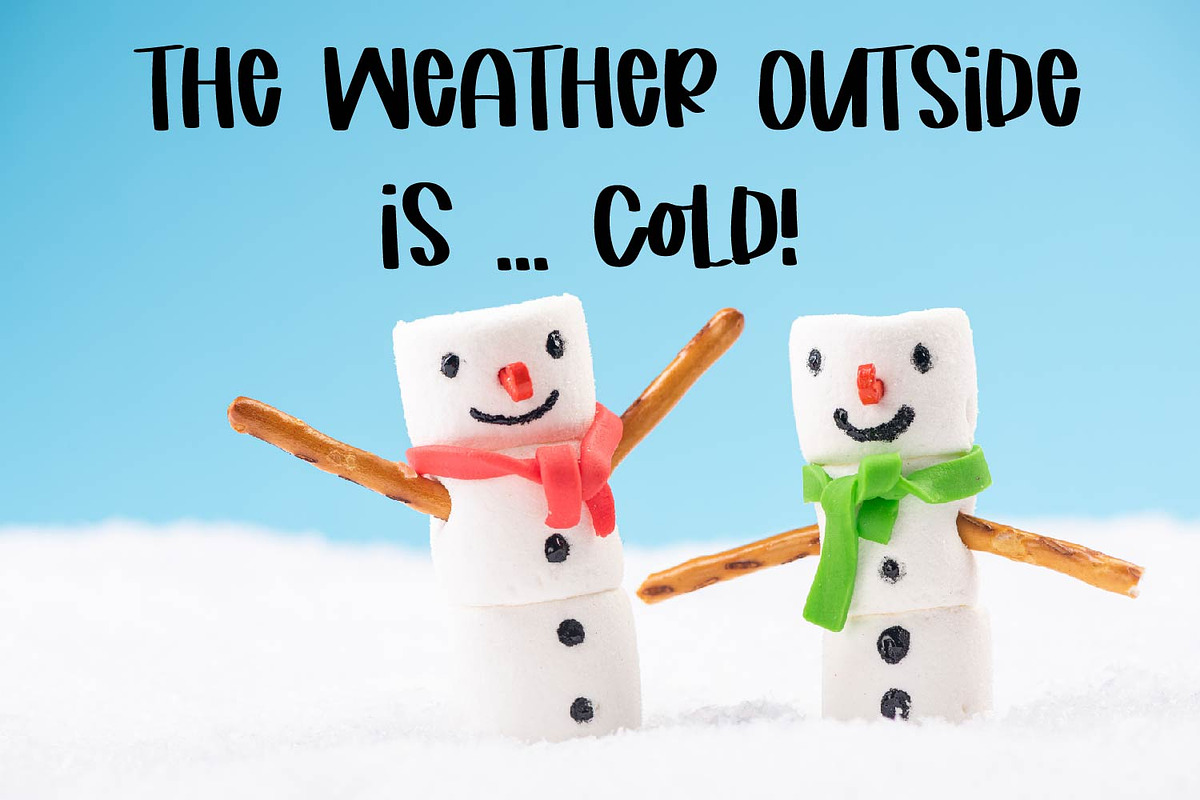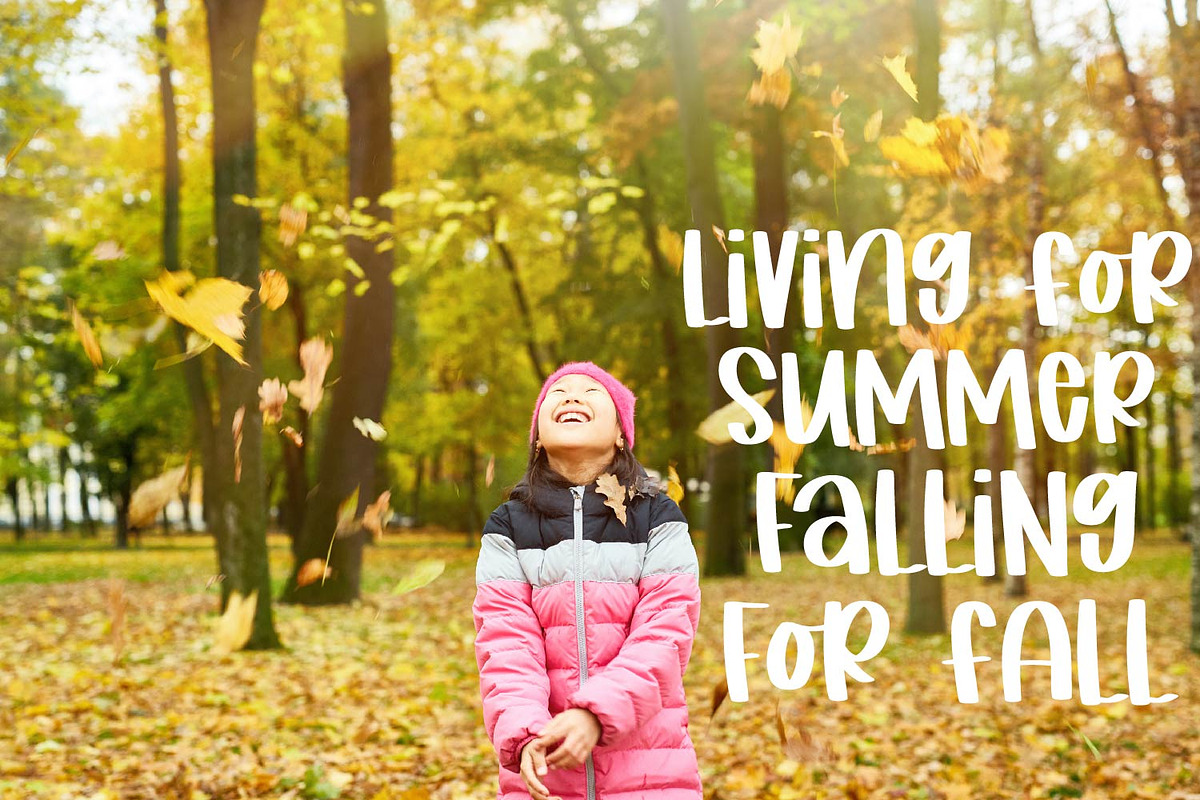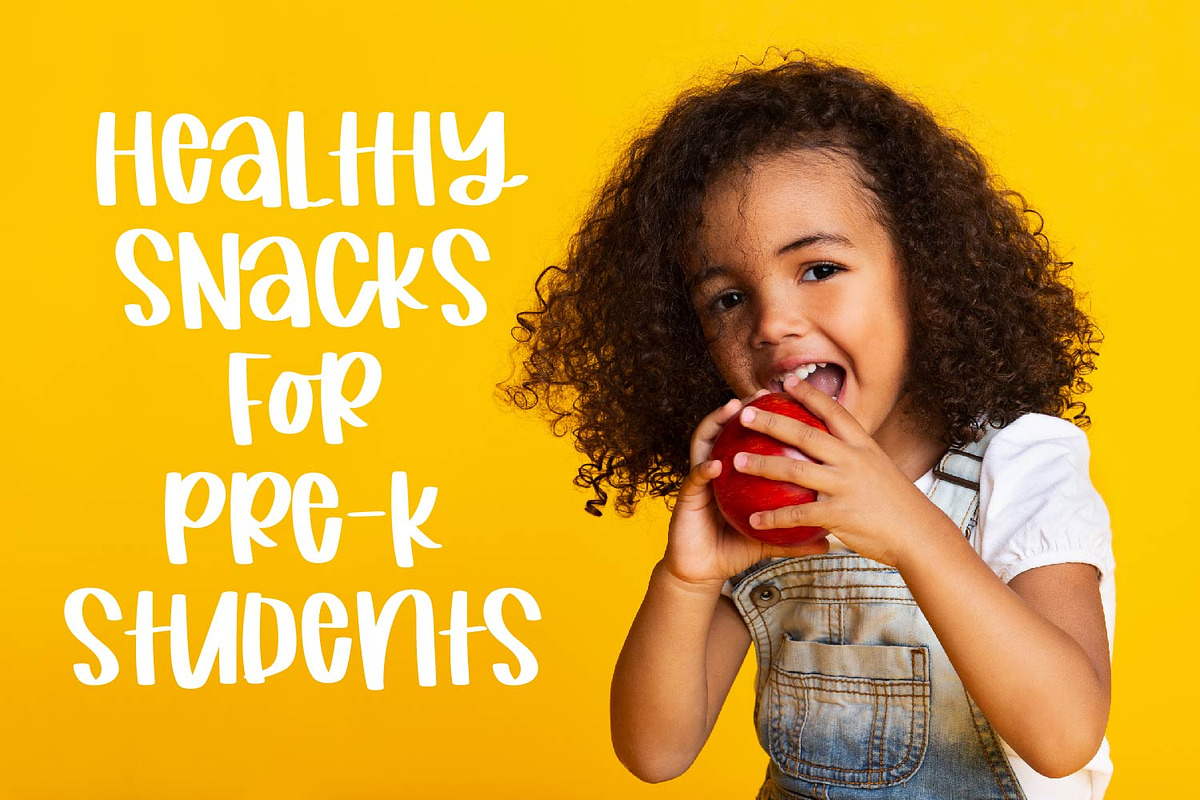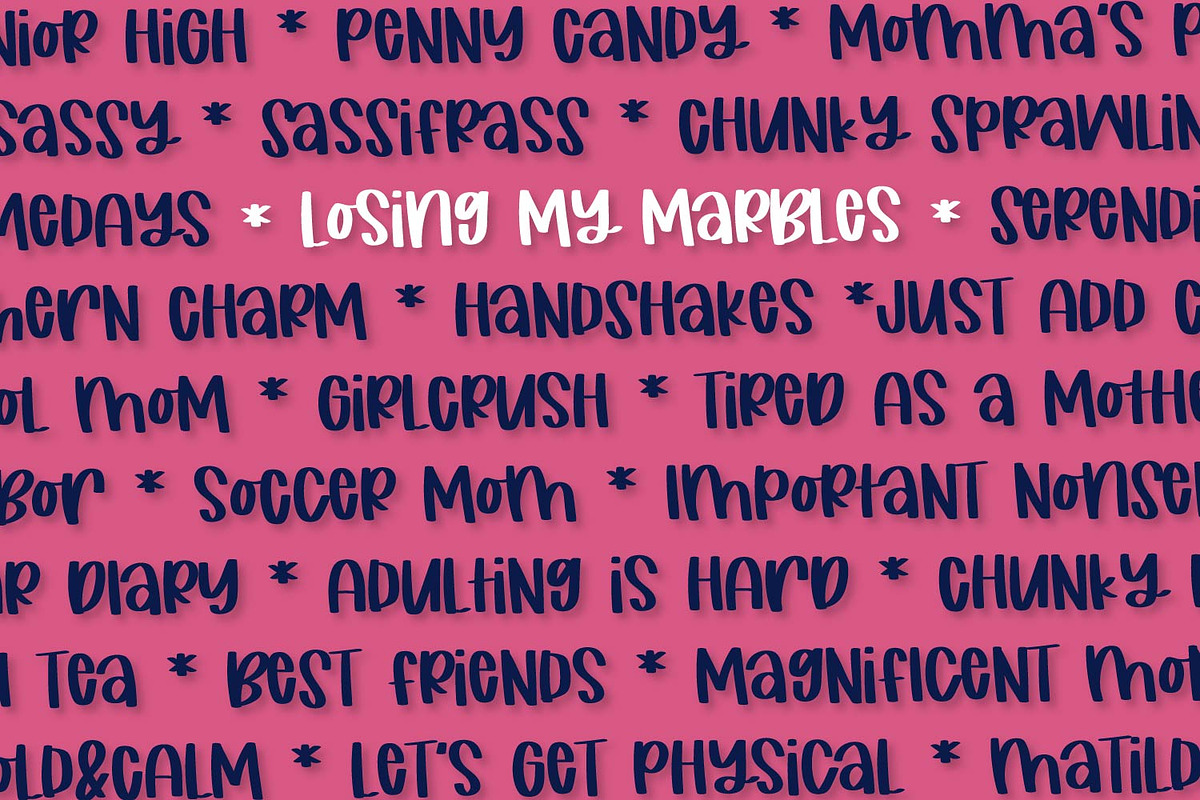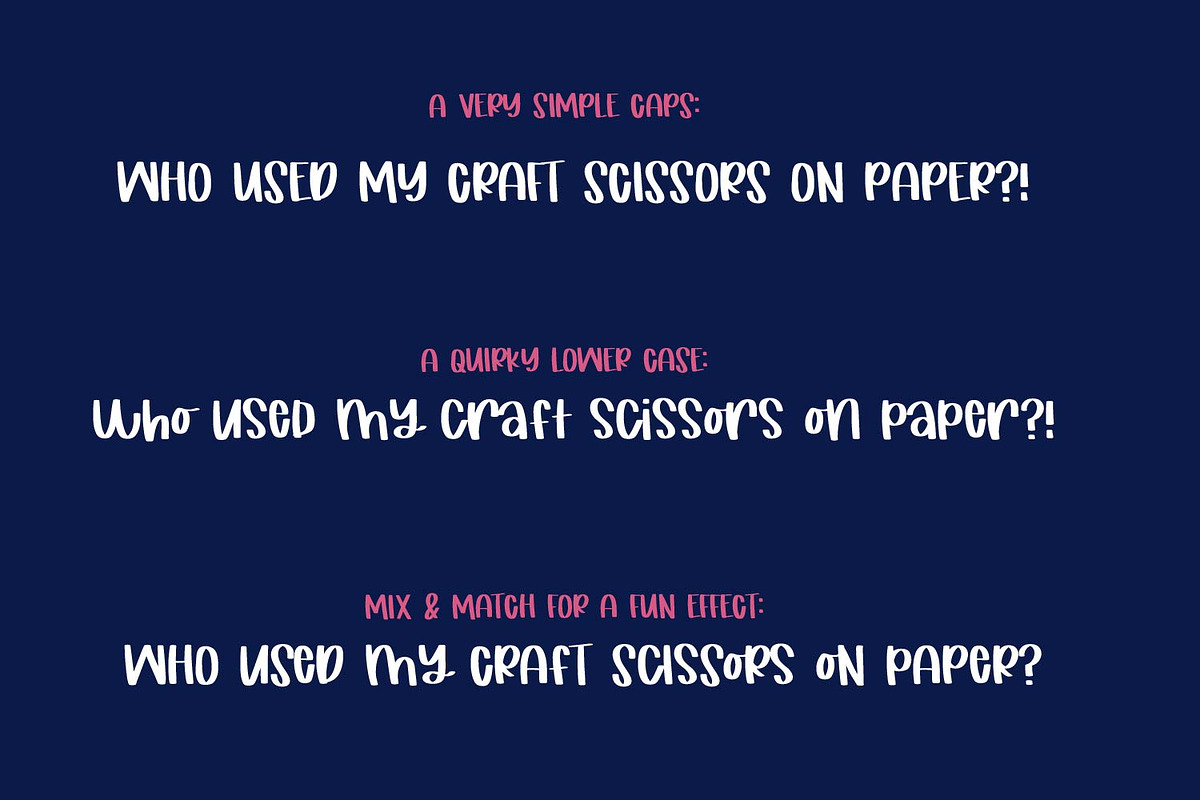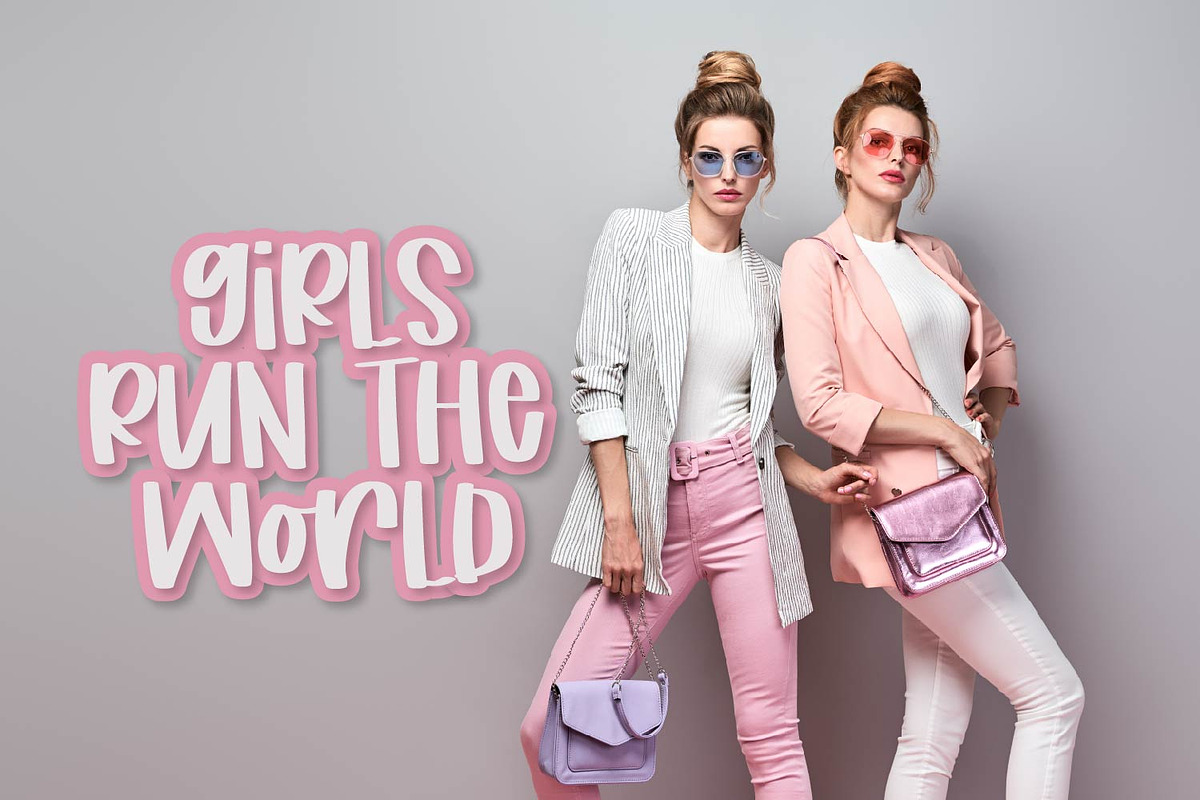
Losing My Marbles - A thick font
Losing My Marbles A Thick Font by CraftyLittleNodes is a font selected for branding, posters, packaging, typography.
Why Losing My Marbles - A thick font is worth a look
Losing My Marbles - A thick font by CraftyLittleNodes fits naturally into Branding, posters, packaging, typography.